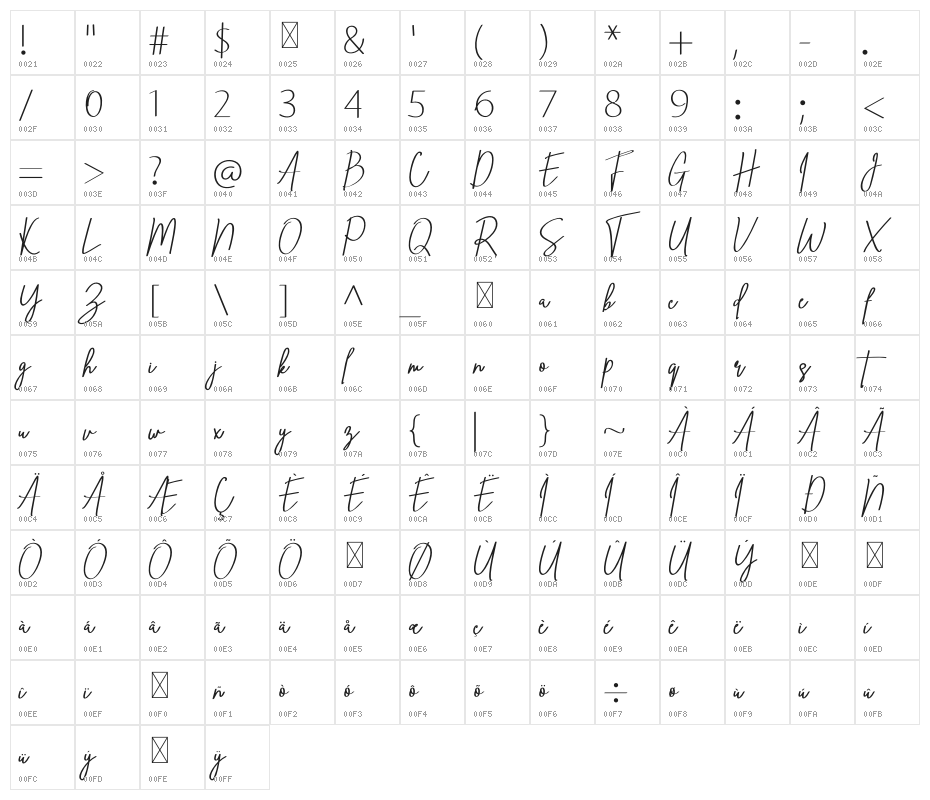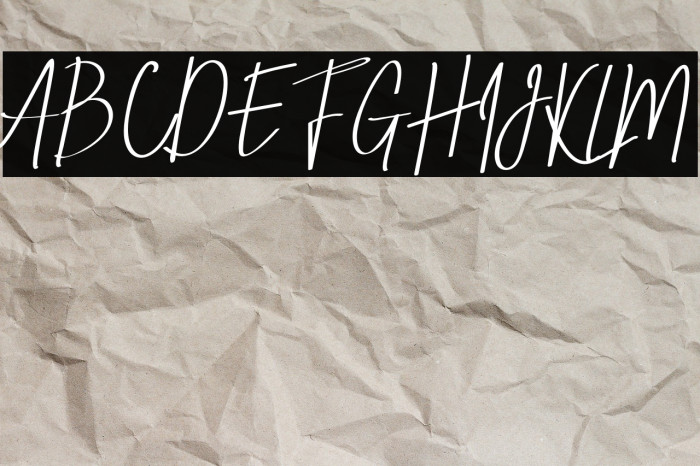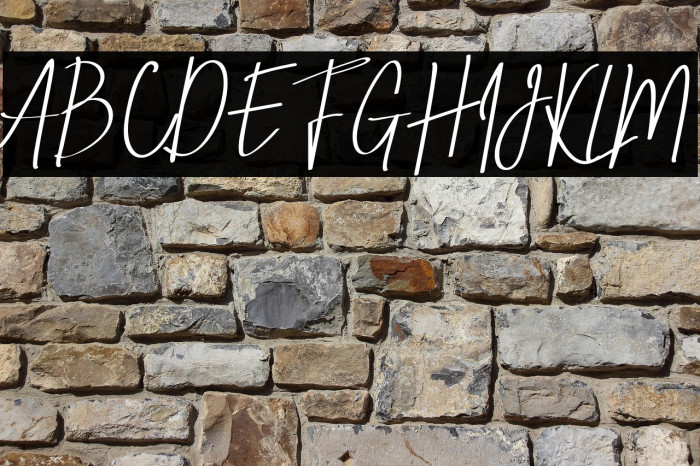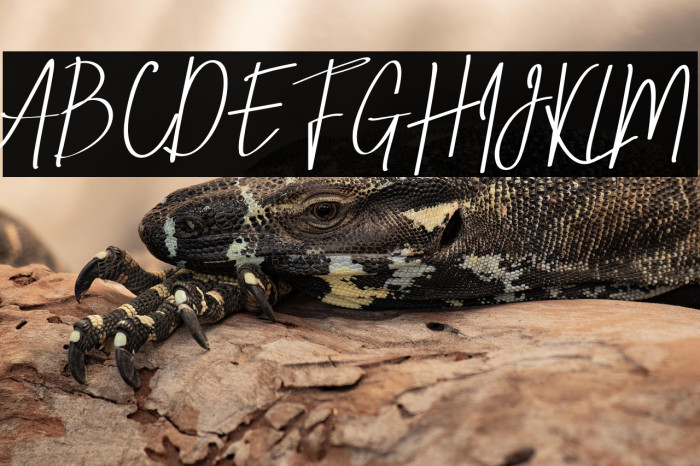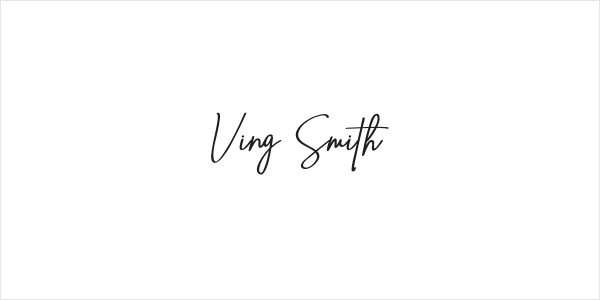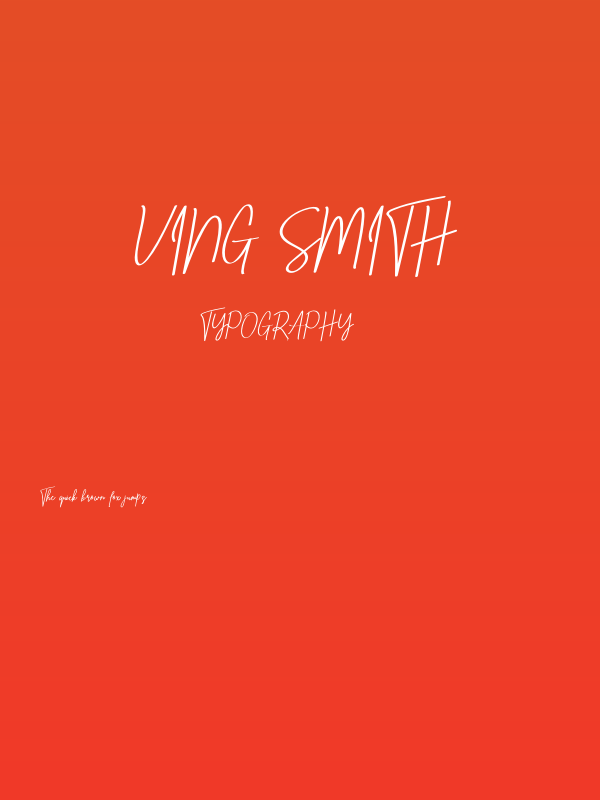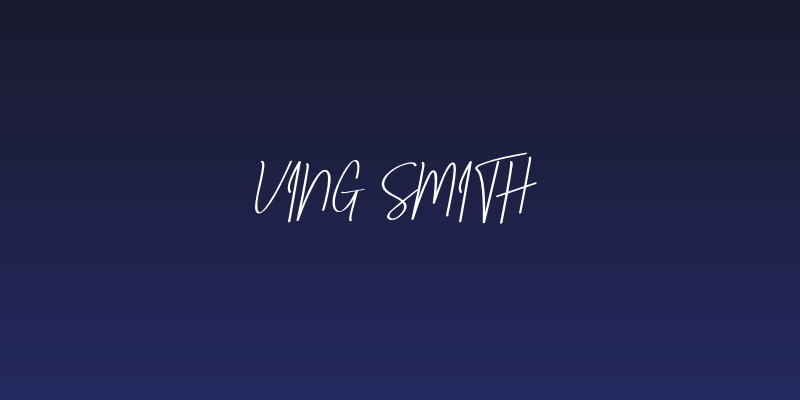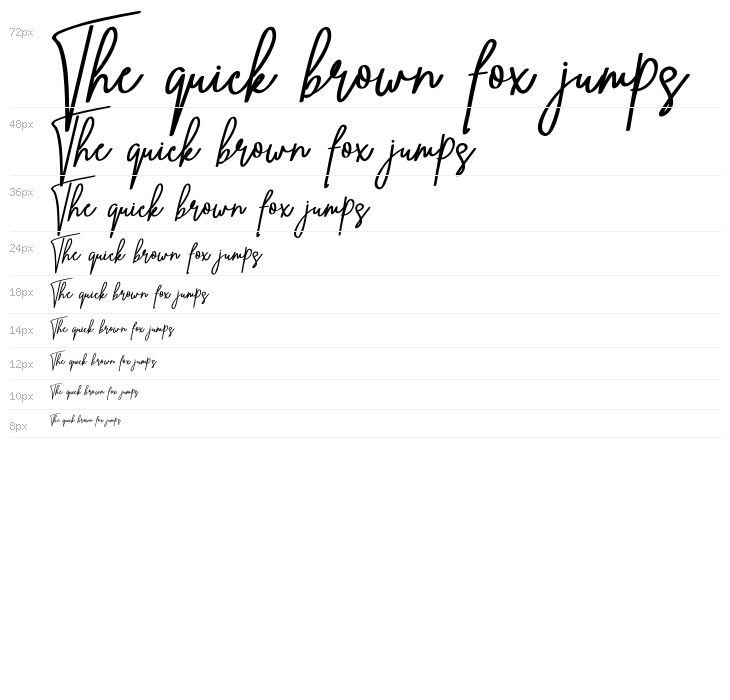
Ving Smith Font
Ving Smith Description
This font features a dynamic and expressive style, combining elements of both script and handwritten aesthetics. The uppercase letters are tall and slightly condensed, with a playful, flowing quality that suggests movement and energy. The lowercase letters maintain a consistent rhythm, with smooth, connected strokes that enhance readability while retaining a casual elegance. Numbers are clear and distinct, with a slight slant that complements the overall style. Special characters are thoughtfully designed to match the font's lively character, making it versatile for various applications.
Use CaseLogos, Headlines, Invitations
Proposed ProjectsIdeal for branding, invitations, greeting cards, and creative projects that require a personal touch.